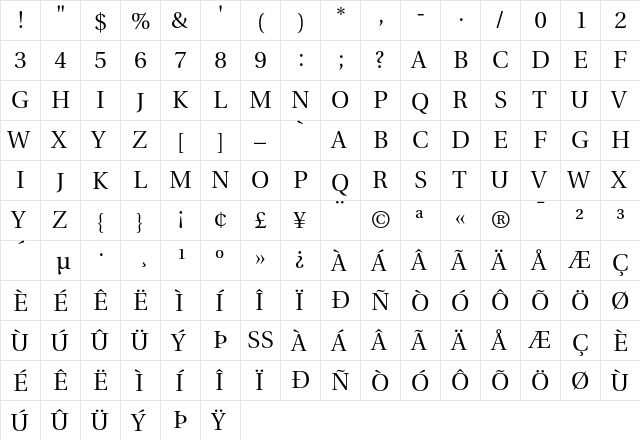
Utopia Titling Capitals
Design Context for Utopia Typeface
Utopia is a composed and adaptable typeface that performs quietly and consistently across a wide range of design contexts.